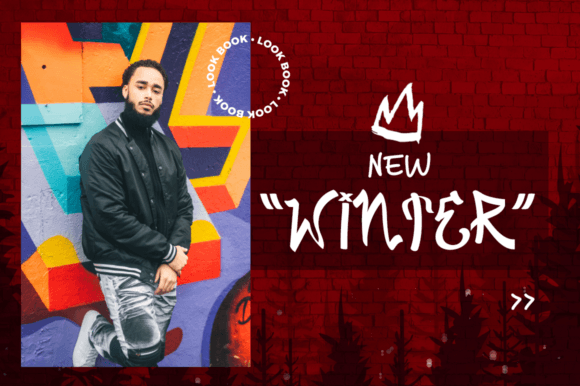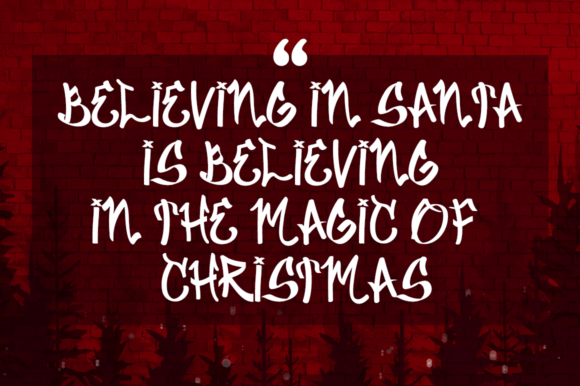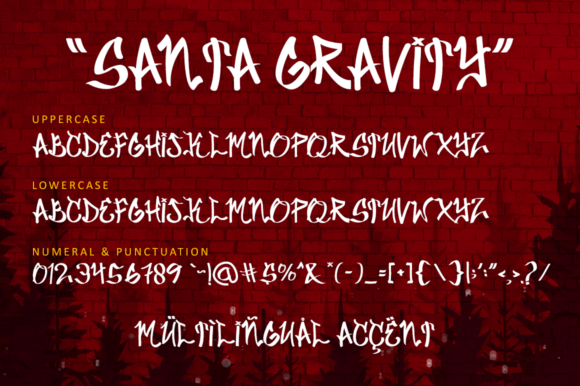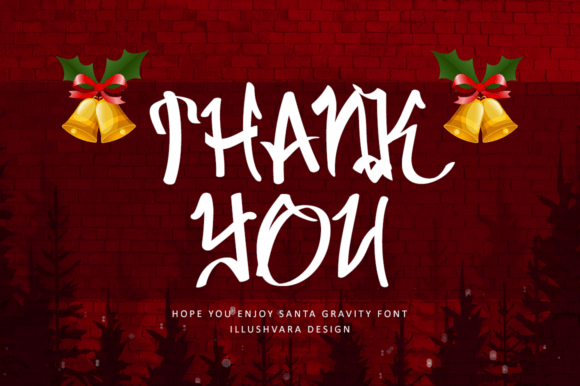
Introduction to Santa Gravity Font
Santa Gravity is a fun display font featuring an urban style.
Fun and casual, this font is ideal for any design you wish to develop for Christmas Season .
Key Features of Santa Gravity Font